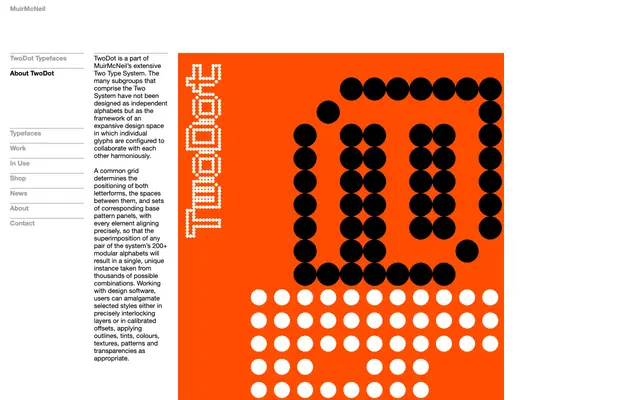
A dot-structured display typeface in three stroke variants and seven weights, designed to layer with other alphabets from MuirMcNeil's broader Two Type System.
Part of MuirMcNeil's Two Type System, TwoDot is built on a common grid that governs letterforms, spacing and accompanying pattern panels, allowing precise superimposition with any of the system's 200-plus modular alphabets. Three variant styles define its character: Style A uses three dots to the stroke width, Style B applies a dotted outline stroke and Style C a dotted inline stroke, each available in seven weights. The system is designed for layered use in software, with interlocking or offset combinations accepting outlines, tints, colours, textures and transparencies.
TwoDot is a modular, grid-based display type system built on dot matrix structures with variant stroke styles; its constructivist, systematic nature places it firmly in the display/experimental category.